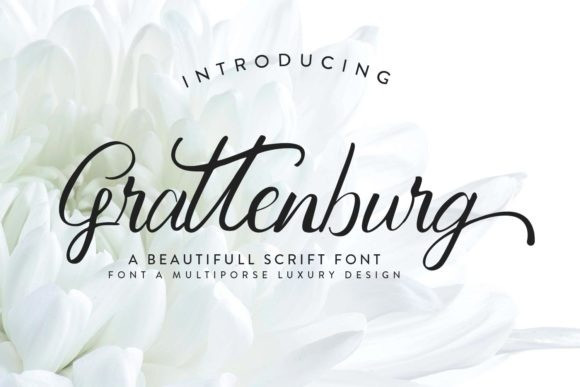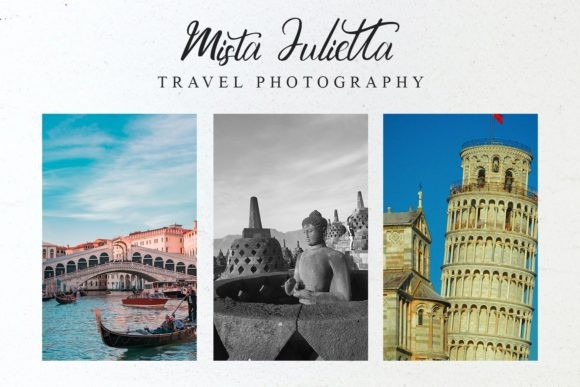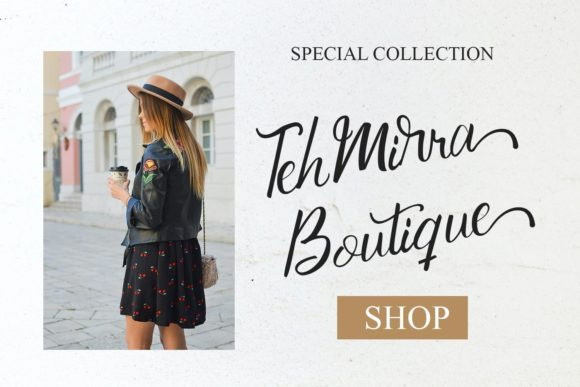
Grattenburg Font
Grattenburg is a flowing handwritten font, described by an elegant touch, perfect for your favorite projects. Fall in love with its incredibly distinct and timeless style and use it to create spectacular designs!